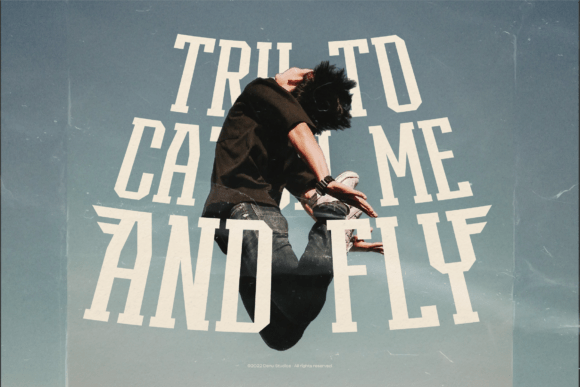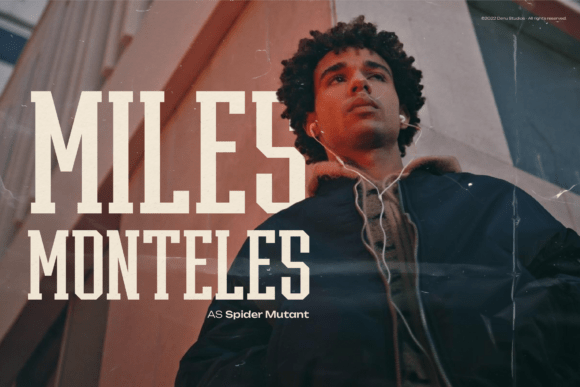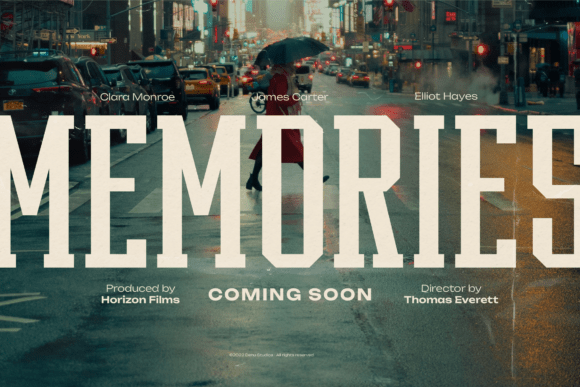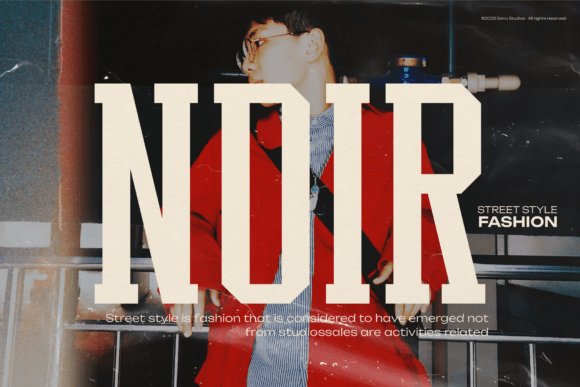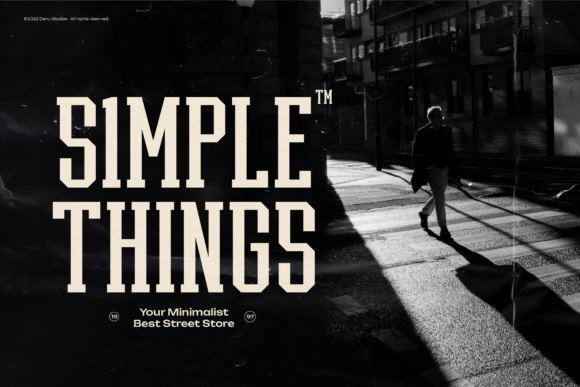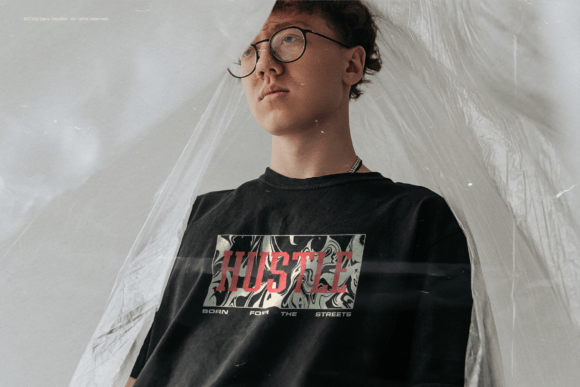
Unlock the Perfect Blend of Style and Legibility with Hoston Runejay | Condensed Display Font
Have you ever been stuck on a design project, searching for the perfect font to elevate your brand or visual message? The frustration of browsing through countless options can be overwhelming, but what if you stumbled upon a font that perfectly captures the essence of your creative vision? That’s exactly what Denustudios has achieved with Hoston Runejay | Condensed Display Font, a stunning condensed display font designed to make a lasting impression.
Whether you’re working on logos, branding projects, or any other creative endeavor, Hoston Runejay | Condensed Display Font is the perfect addition to your toolkit. Its sleek and modern design makes it an ideal choice for various projects, from homeware designs to product packaging, and even special events. With its versatility and high-quality features, this font is a valuable asset for designers looking to take their work to the next level.
Key Features of Hoston Runejay | Condensed Display Font
- Font Family: A condensed display font designed for headlines and titles, ideal for digital and print media.
- Font Size: Supports a range of font sizes, from 8pt to 200pt, making it suitable for various design applications, including logos, posters, and signage.
- Resolution: Designed for high-resolution displays, with clear and crisp characters at 300 DPI and above.
- Unique Characteristics: Features a condensed and geometric design, with clean lines and a modern aesthetic, making it perfect for minimalist and contemporary designs.
- Language Support: Supports a wide range of languages, including Latin, Cyrillic, Greek, and more, making it a versatile choice for global design projects.
Designer Review: Hoston Runejay | Condensed Display Font
I recently had the chance to work with the Hoston Runejay | Condensed Display Font, and I must say it’s an interesting addition to the world of fonts. Here are some of my thoughts on what works well and what doesn’t.
- The condensed design is perfect for titles, headings, and other display text where space is limited.
- The font’s unique, futuristic feel makes it great for science fiction, technology, and other modern-themed projects.
- The font is well-optimized for digital use, making it look crisp and clear on screens of all sizes.
- The font’s condensed design can make it difficult to read at small sizes, especially for long blocks of text.
- The font’s futuristic feel may not be to everyone’s taste, and it may not be suitable for more traditional or conservative projects.
- The font’s lack of italic or bold variations may limit its use in certain situations.
Overall, I think the Hoston Runejay | Condensed Display Font is a solid addition to any designer’s toolkit. While it may have some limitations, its unique design and versatility make it a great choice for the right project. If you’re looking for a font that’s out of the ordinary, this might be the one for you.
Hoston Runejay is a condensed display font, making it perfect for:
- Short paragraphs and quotes
- Infographics and data visualizations
Remember to use the font in moderation, as its condensed nature can make it difficult to read at small sizes.
The recommended font size for optimal readability with the Hoston Runejay | Condensed Display Font is between 12pt and 24pt. However, this may vary depending on the specific design context and intended audience.